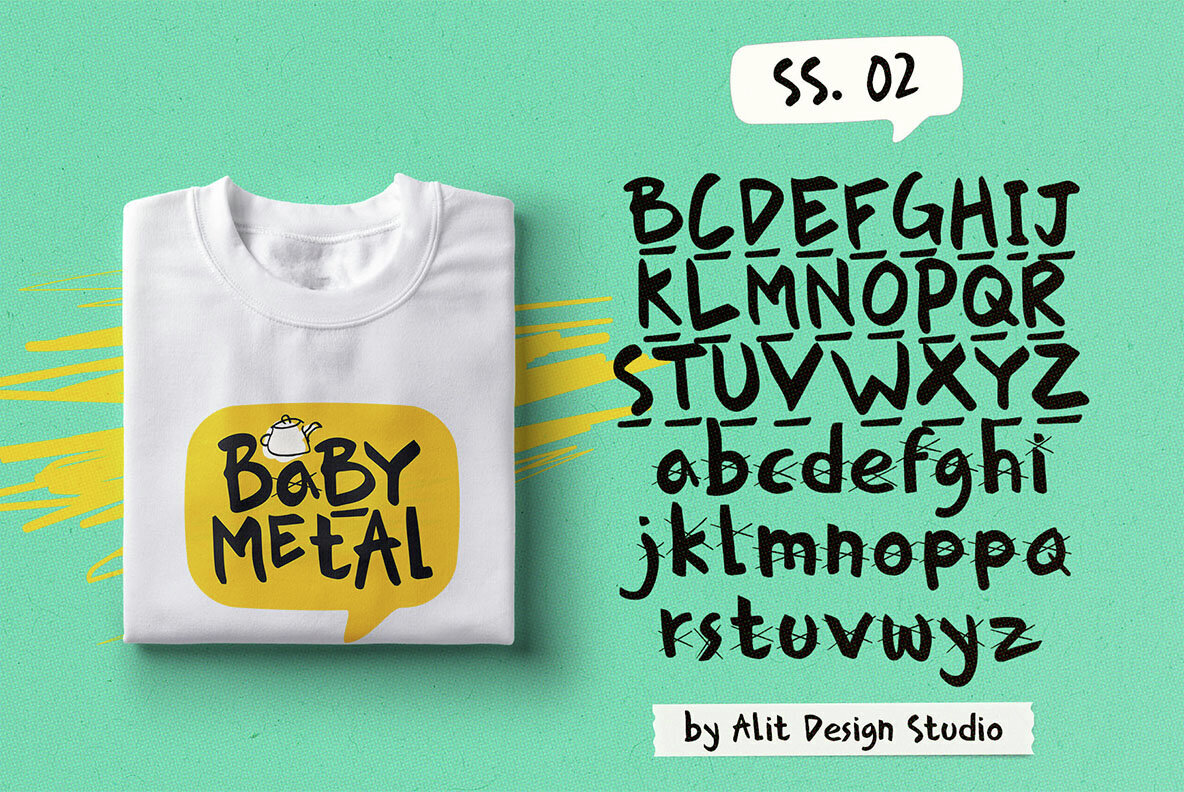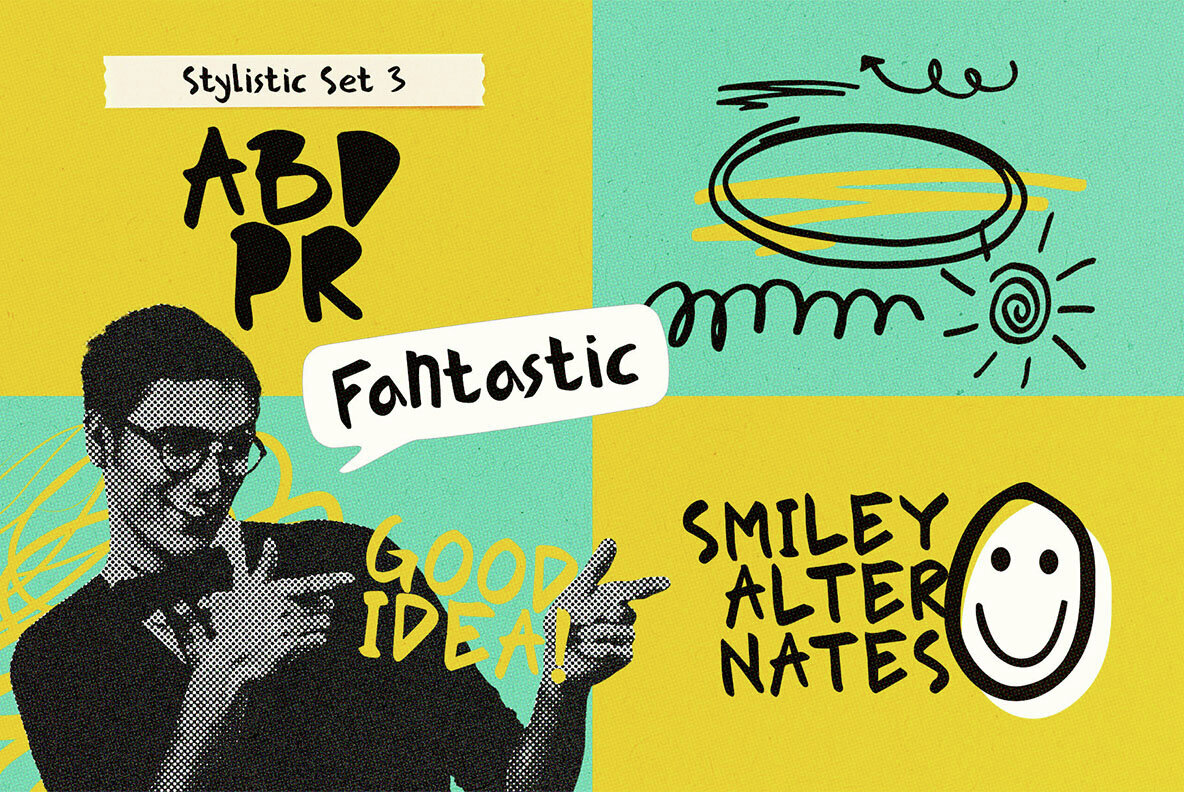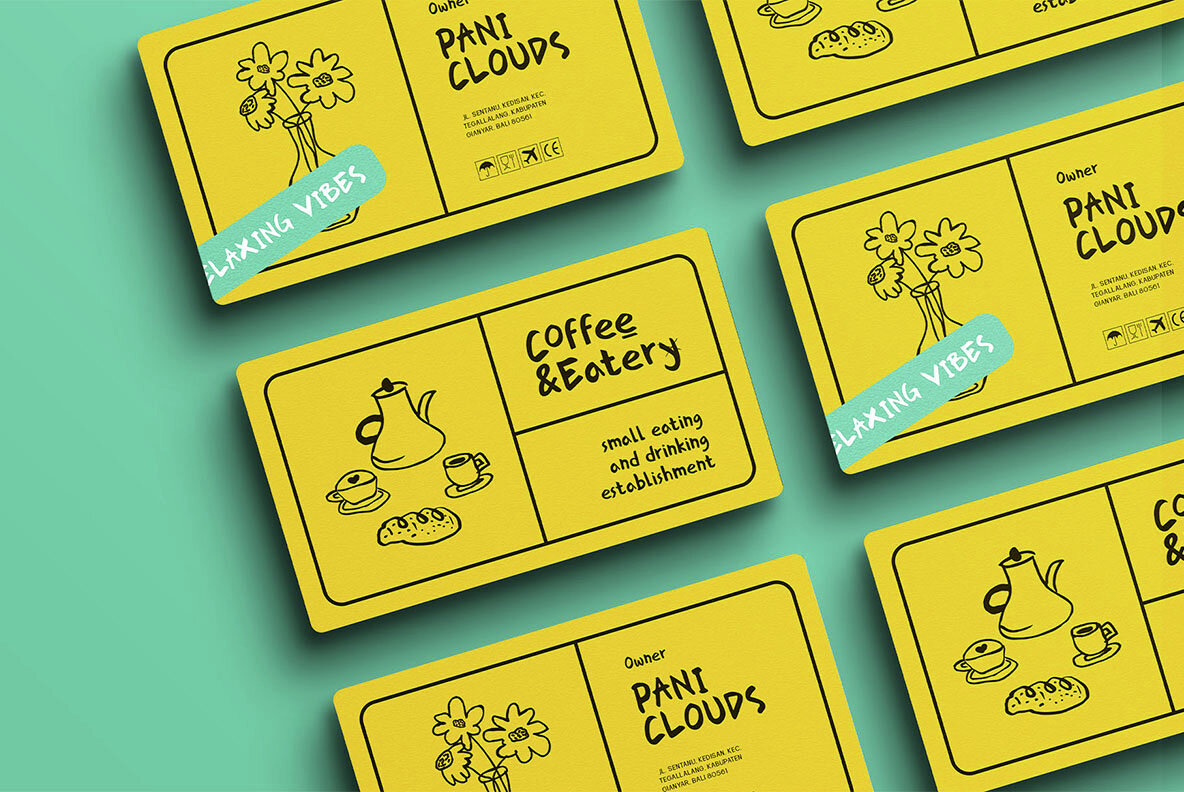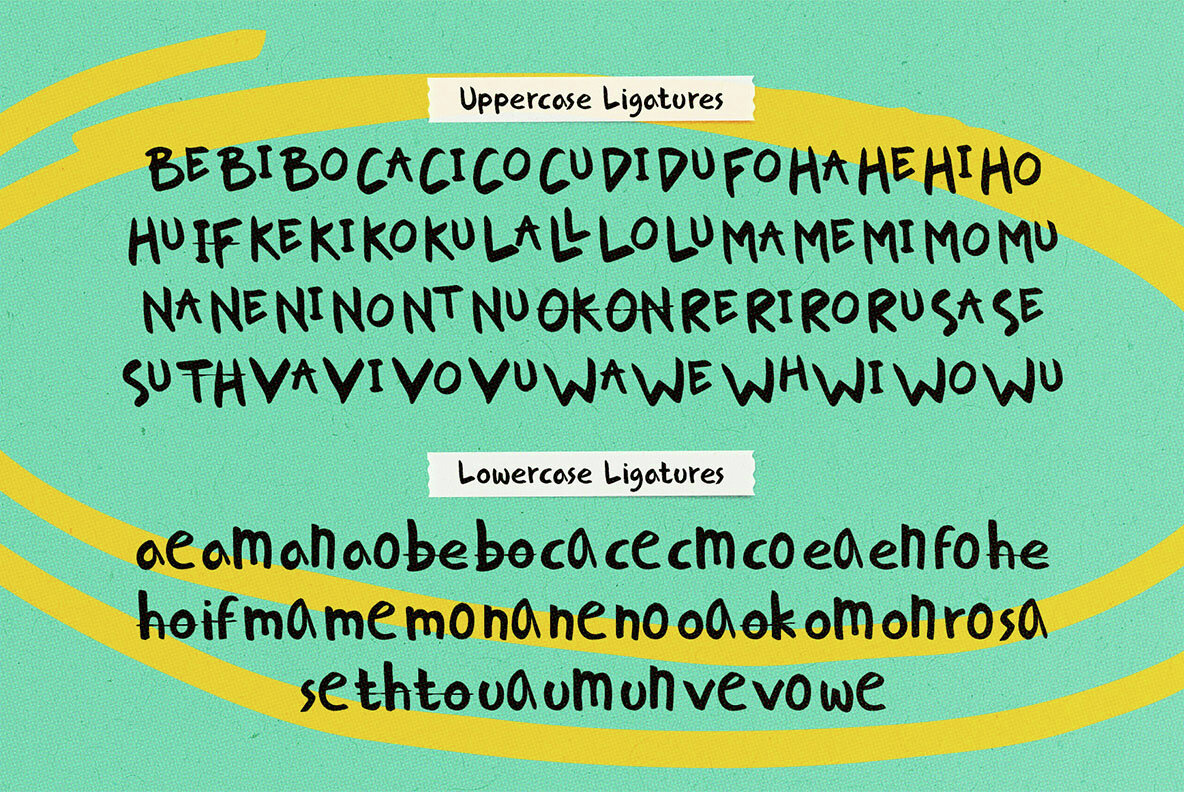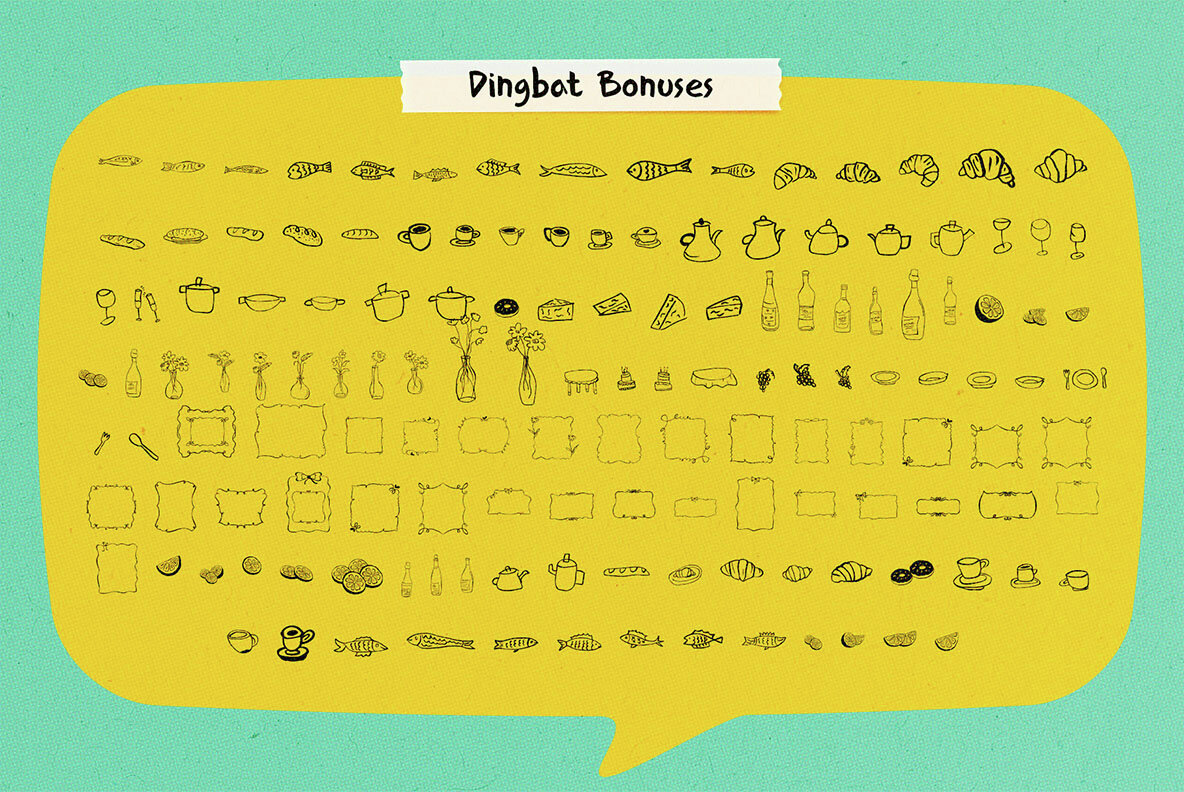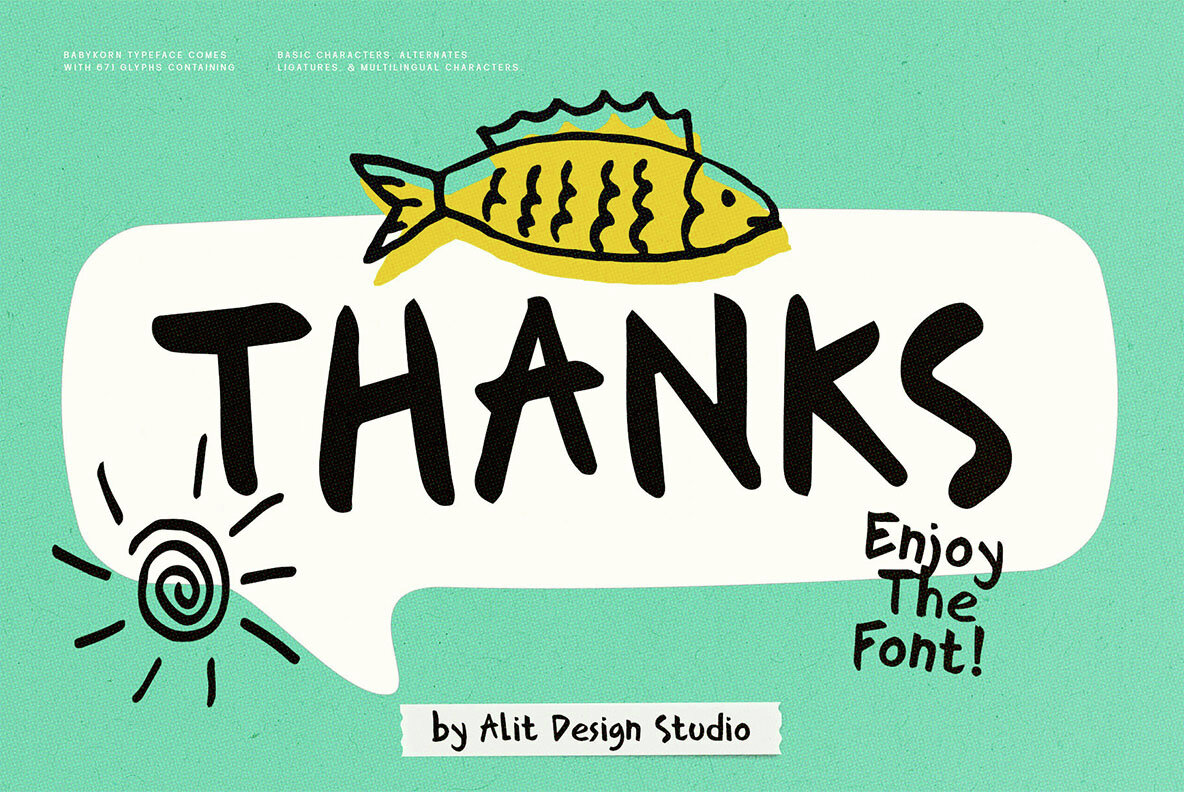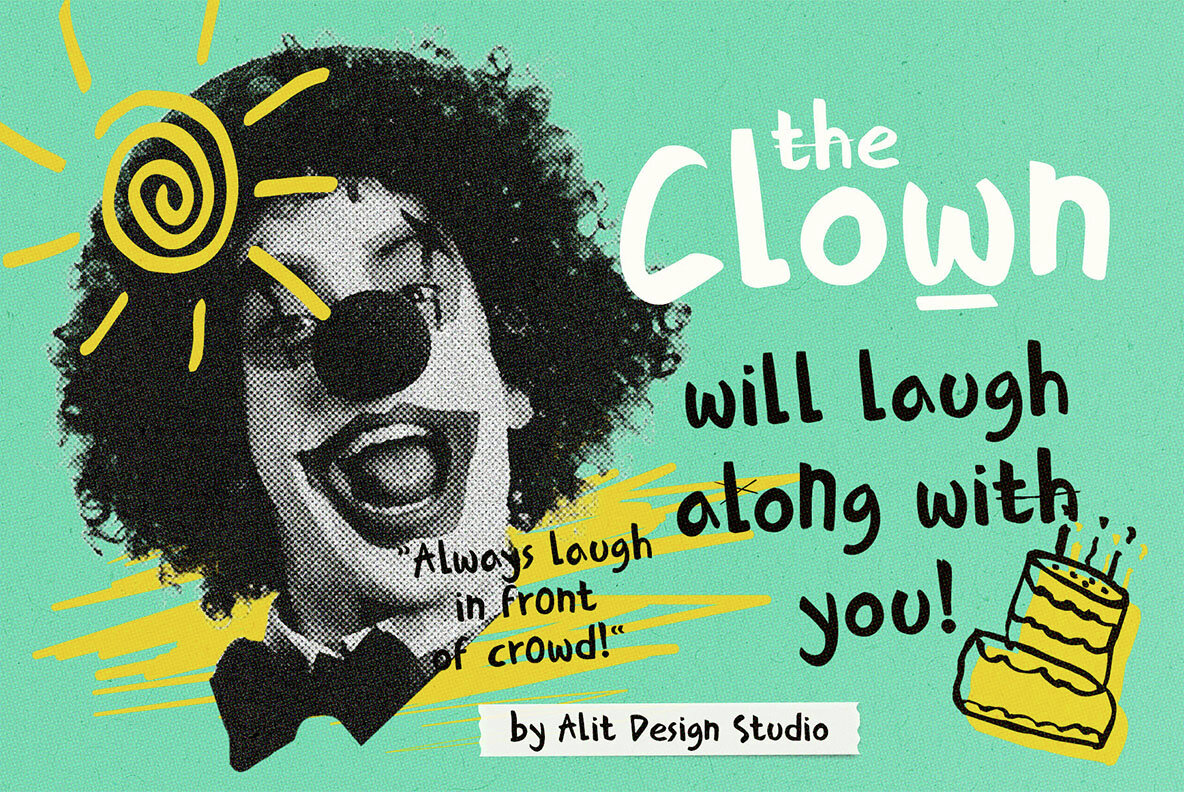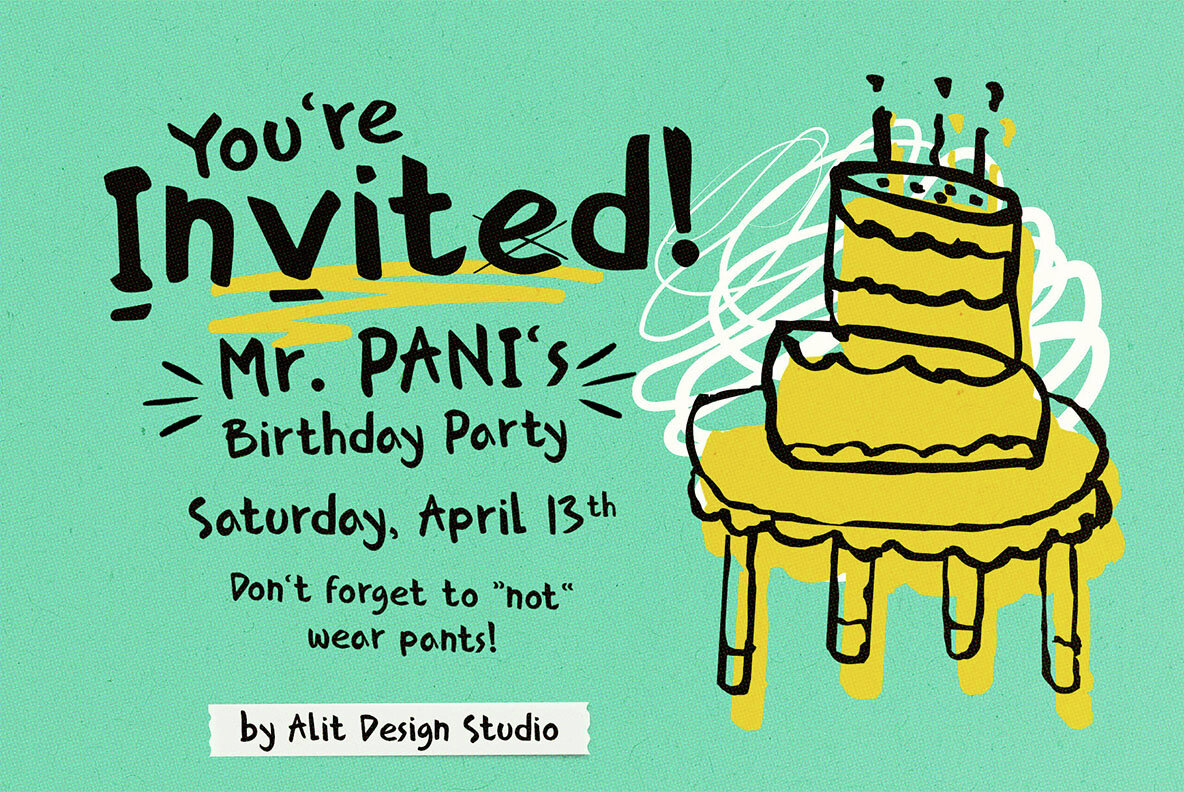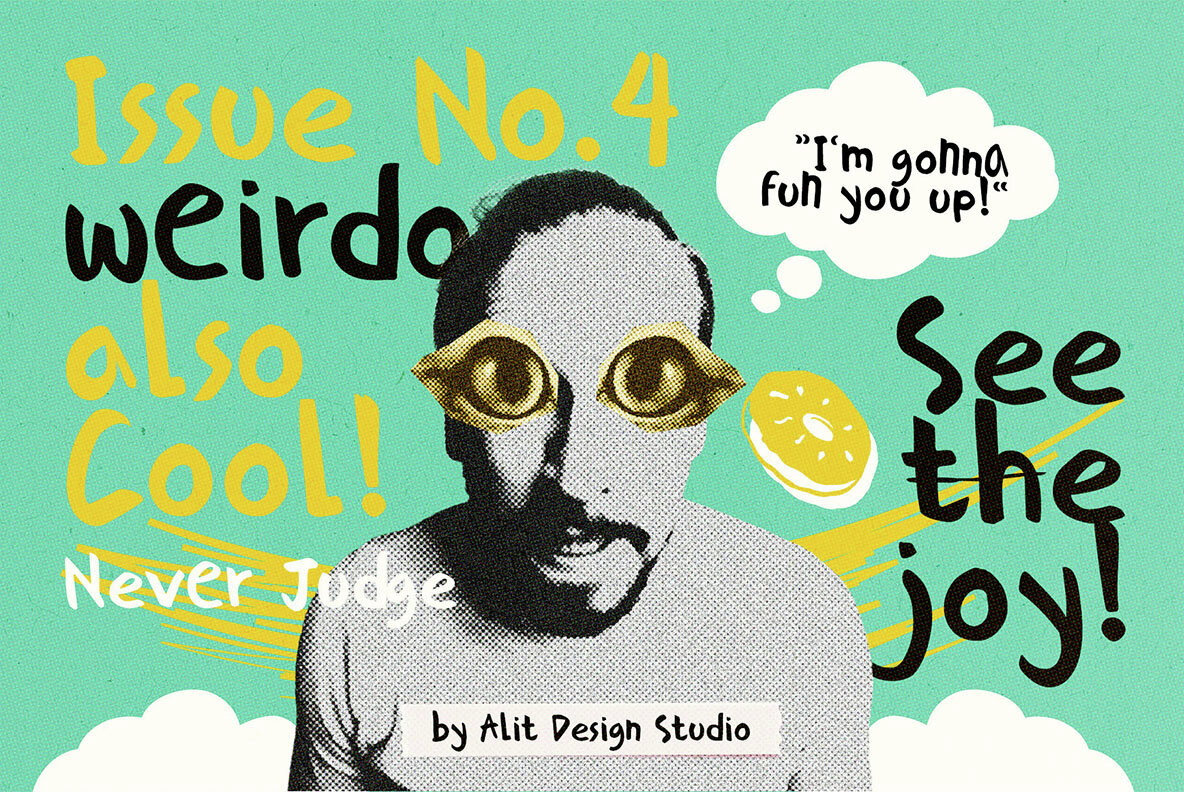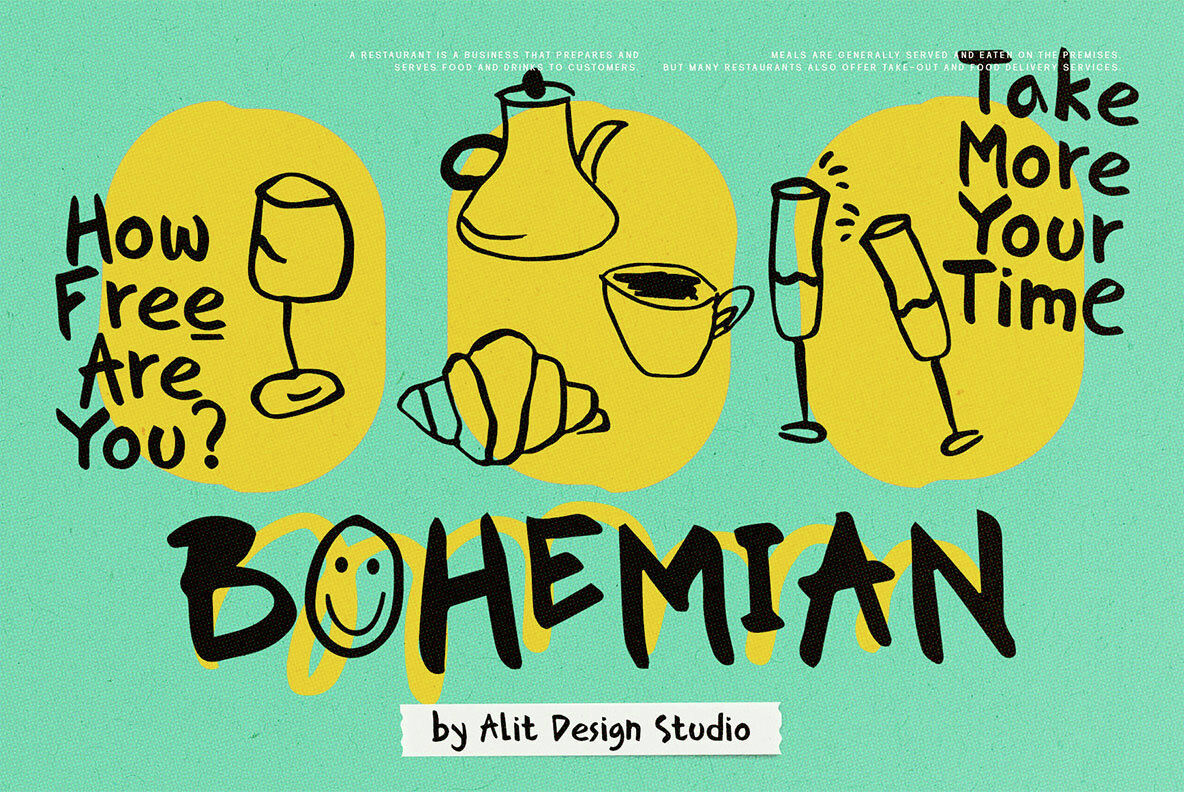
Baby Korn Font
Introducing "Baby Korn Typeface" – where the whimsical meets the contemporary in a delightful dance of letters. This font is a celebration of innocence and modernity, merging spontaneous strokes with easy readability. Imagine the playfulness of a child's handwriting captured on paper, yet refined into a font that seamlessly integrates into any project. Baby Korn effortlessly balances the charm of naive art with the practicality of clear communication. Each letter is crafted with care, maintaining a sense of spontaneity while ensuring legibility across various applications. Whether you're designing invitations, branding materials, or social media graphics, Baby Korn adds a touch of youthful energy to your creations. But wait, there's more! Baby Korn Typeface doesn't stop at letters alone. Included in this font package are dingbat characters featuring whimsical icons and illustrations. These elements complement the font's naive theme, allowing you to create truly unique designs that stand out from the crowd. Embrace creativity without limits with Baby Korn Typeface – where every stroke tells a story, and every character sparks imagination.